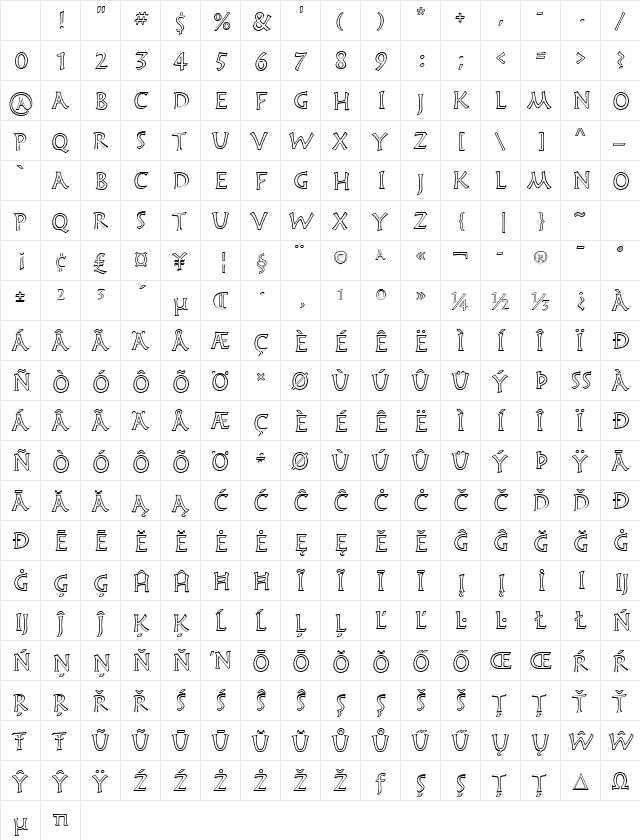
Frutiger Capitalis is built around its visual character rather than neutral utility - its distinctive forms are designed to make an impression at display sizes.
Font Pairing: Pair with a clean neutral sans-serif for body copy to let Frutiger Capitalis's character lead without overwhelming the composition.
Pro Tip: Use Frutiger Capitalis exclusively at display sizes - it was designed to be seen, not read at length. Let a neutral companion handle body copy.